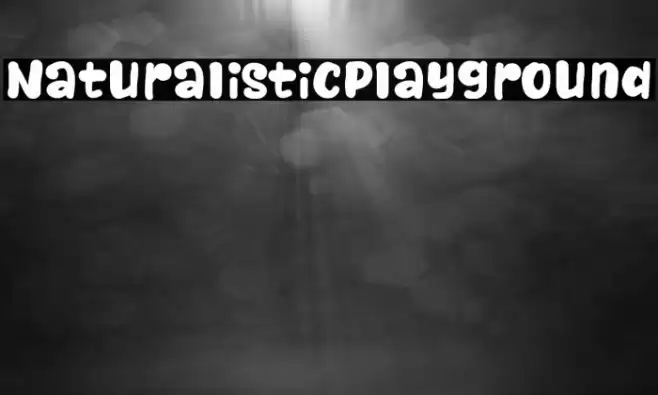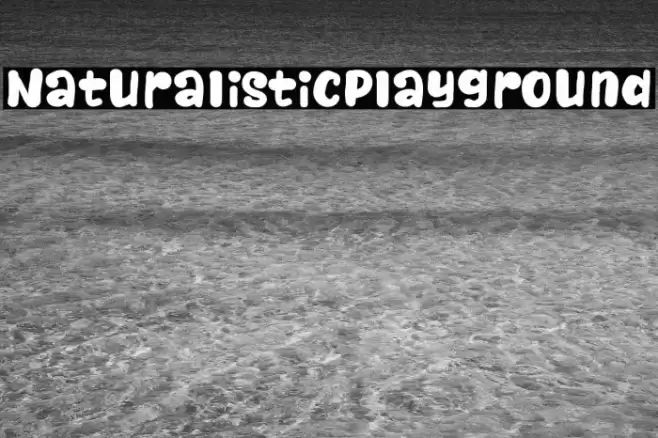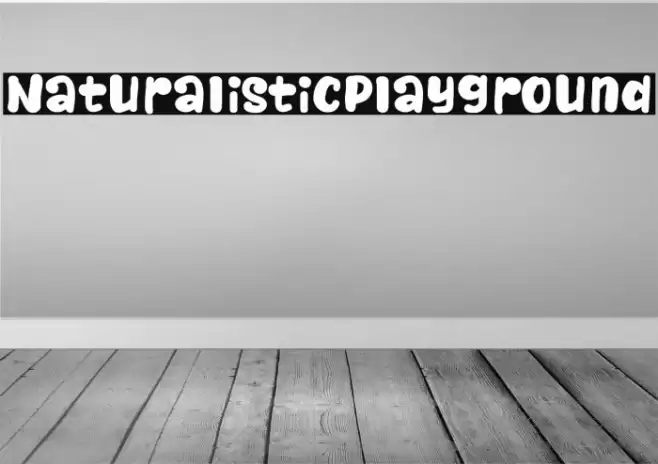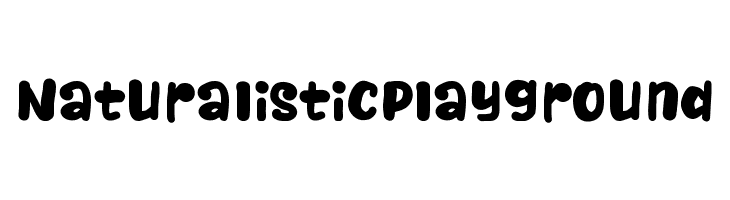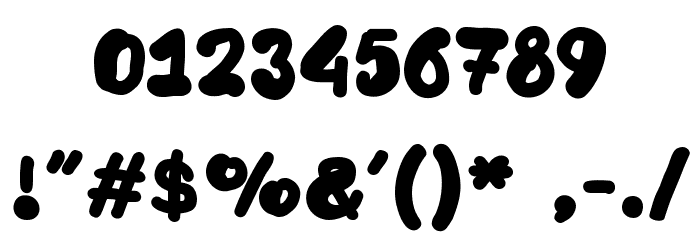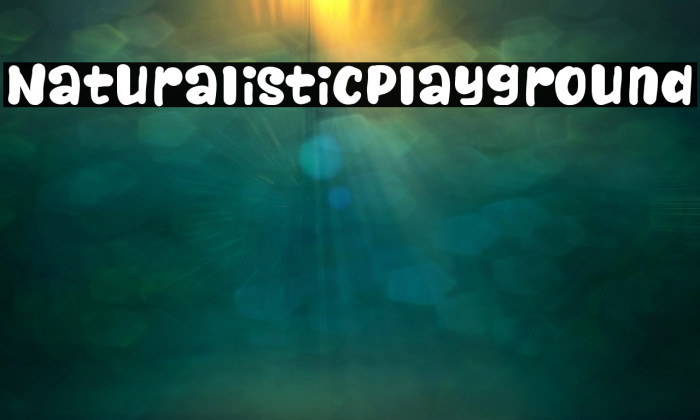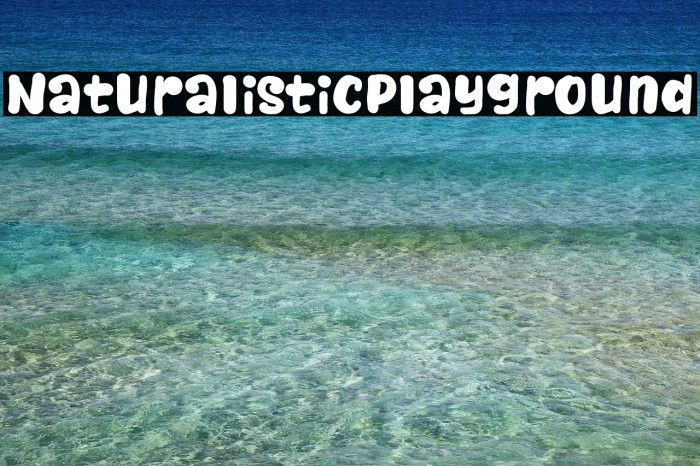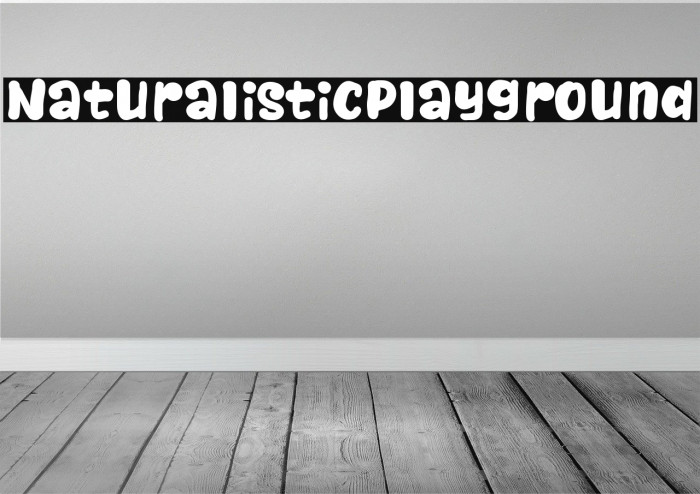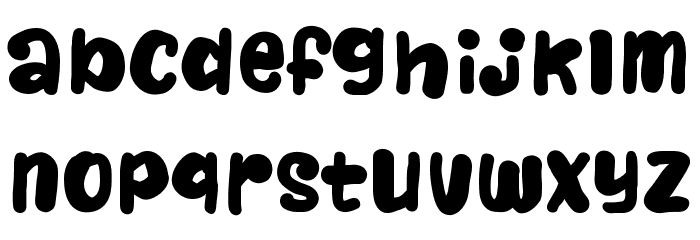
NaturalisticPlayground Font
NaturalisticPlayground Description
This playful and bold font features rounded, organic shapes that give it a friendly and approachable appearance. The characters are thick and slightly irregular, adding a whimsical touch to the overall design. The font maintains a consistent weight throughout, with smooth curves and a hand-drawn feel. Its unique style makes it stand out, perfect for projects that require a fun and informal tone. The spacing between characters is tight, enhancing its compact and cohesive look. This font is ideal for creative projects that aim to capture attention with its lively and energetic vibe.
A playful, bold font with rounded, organic shapes and a hand-drawn feel from Cartoon fonts.
- Proposed Projects: Ideal for children's books, playful branding, posters, and creative invitations.
- Character Spacing: Tight
- Overall Style: Playful, Whimsical